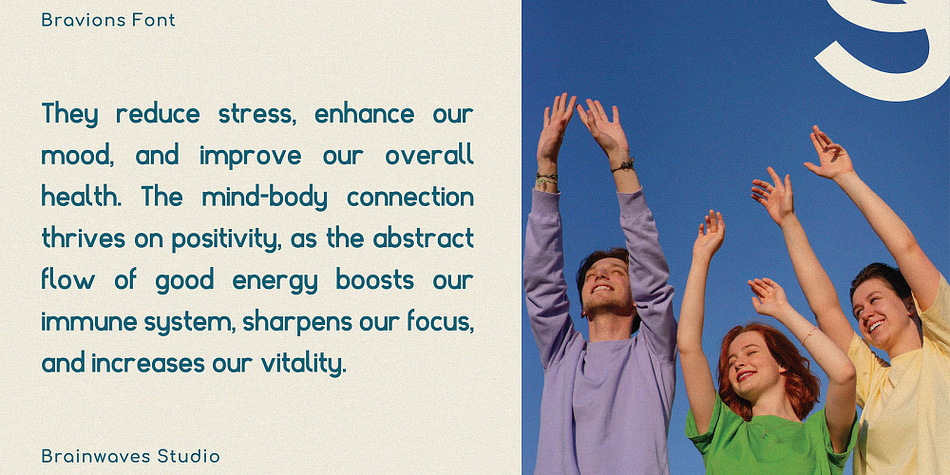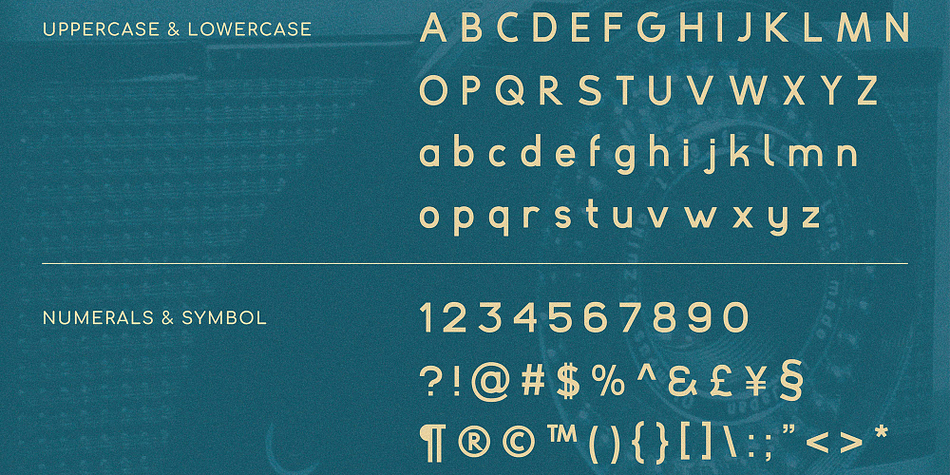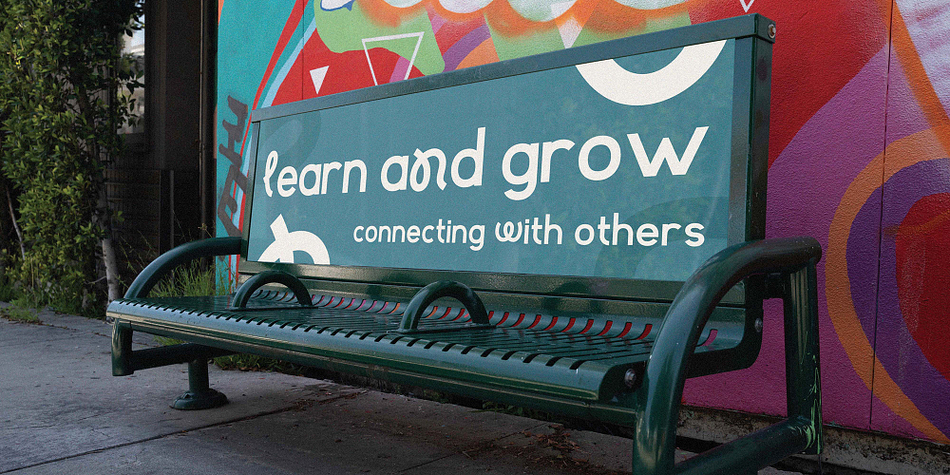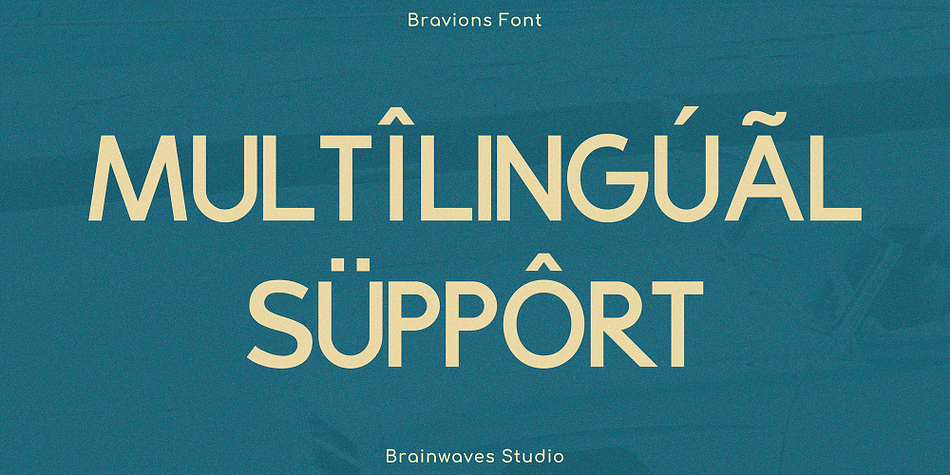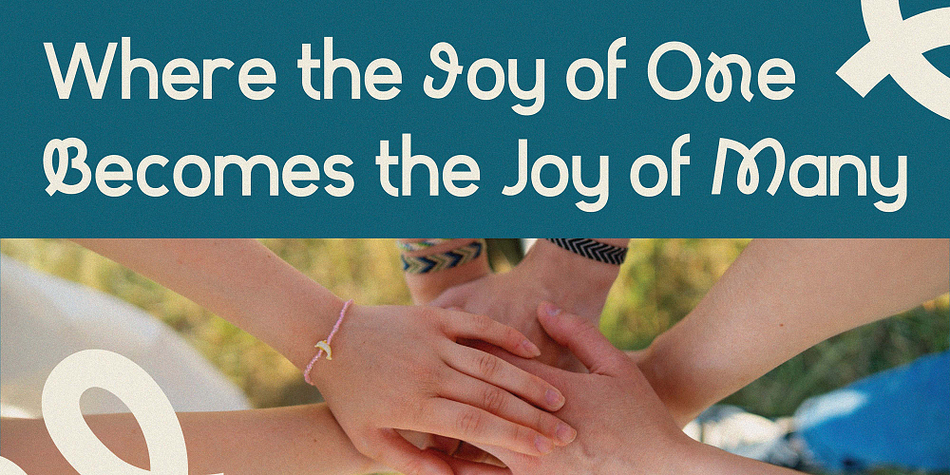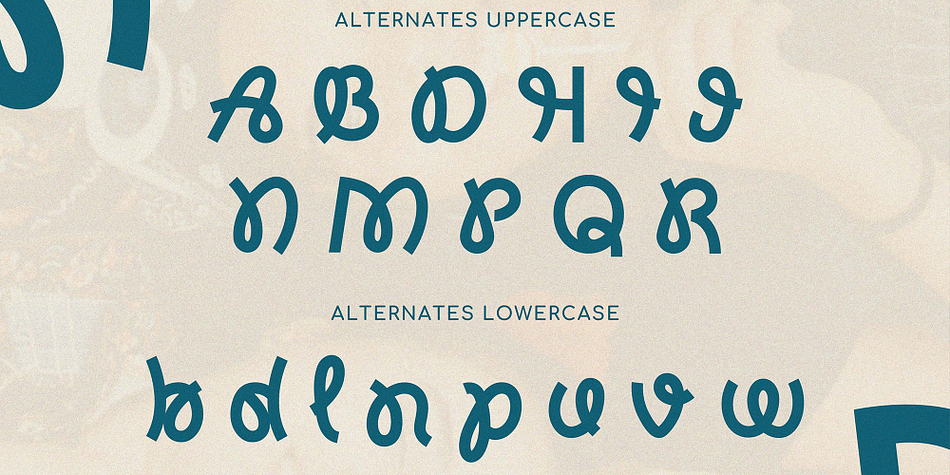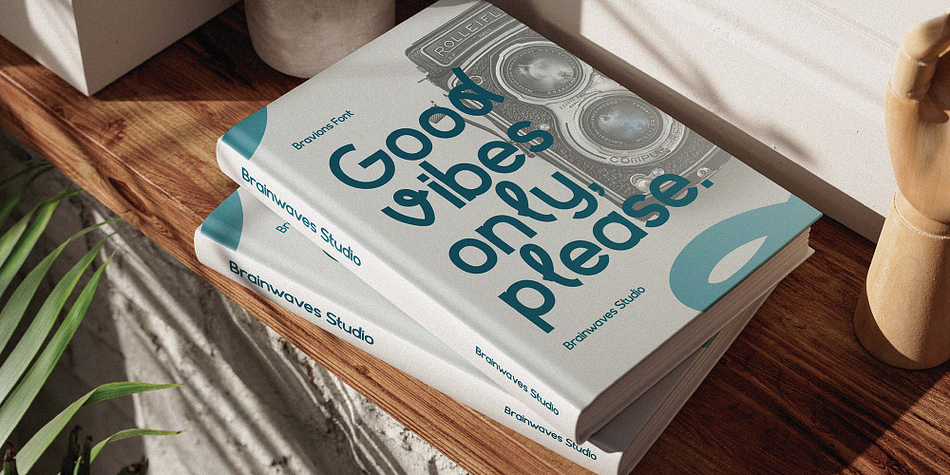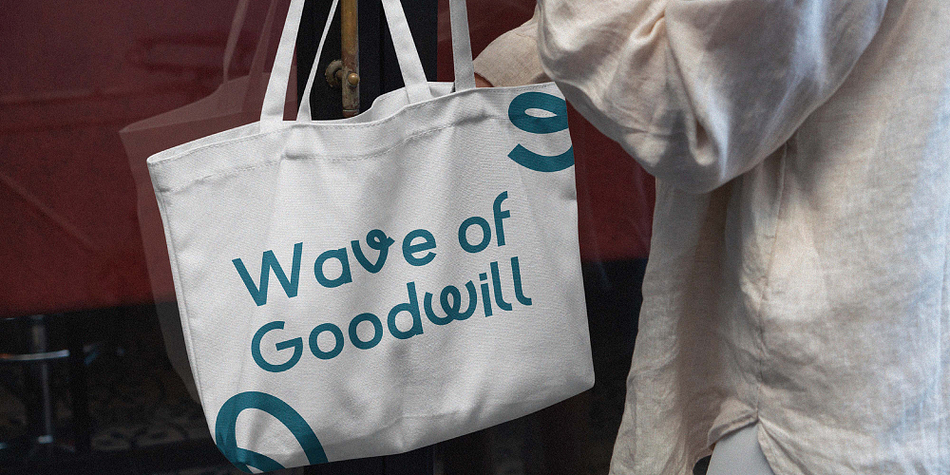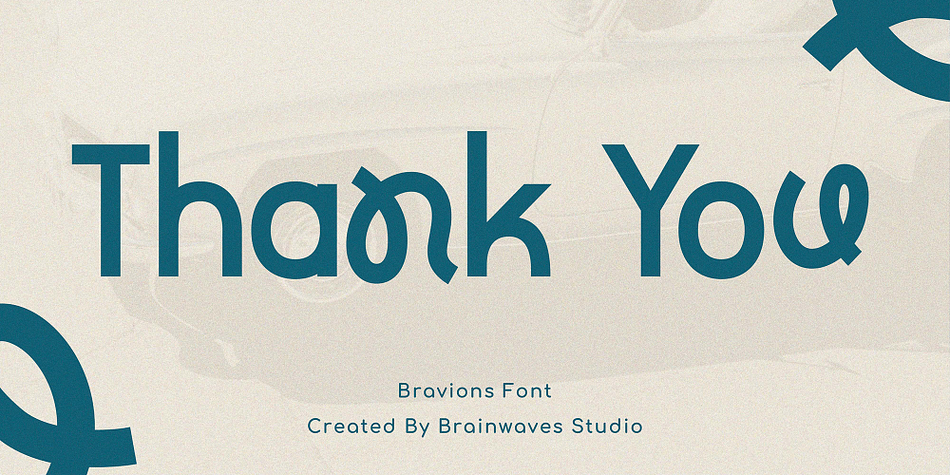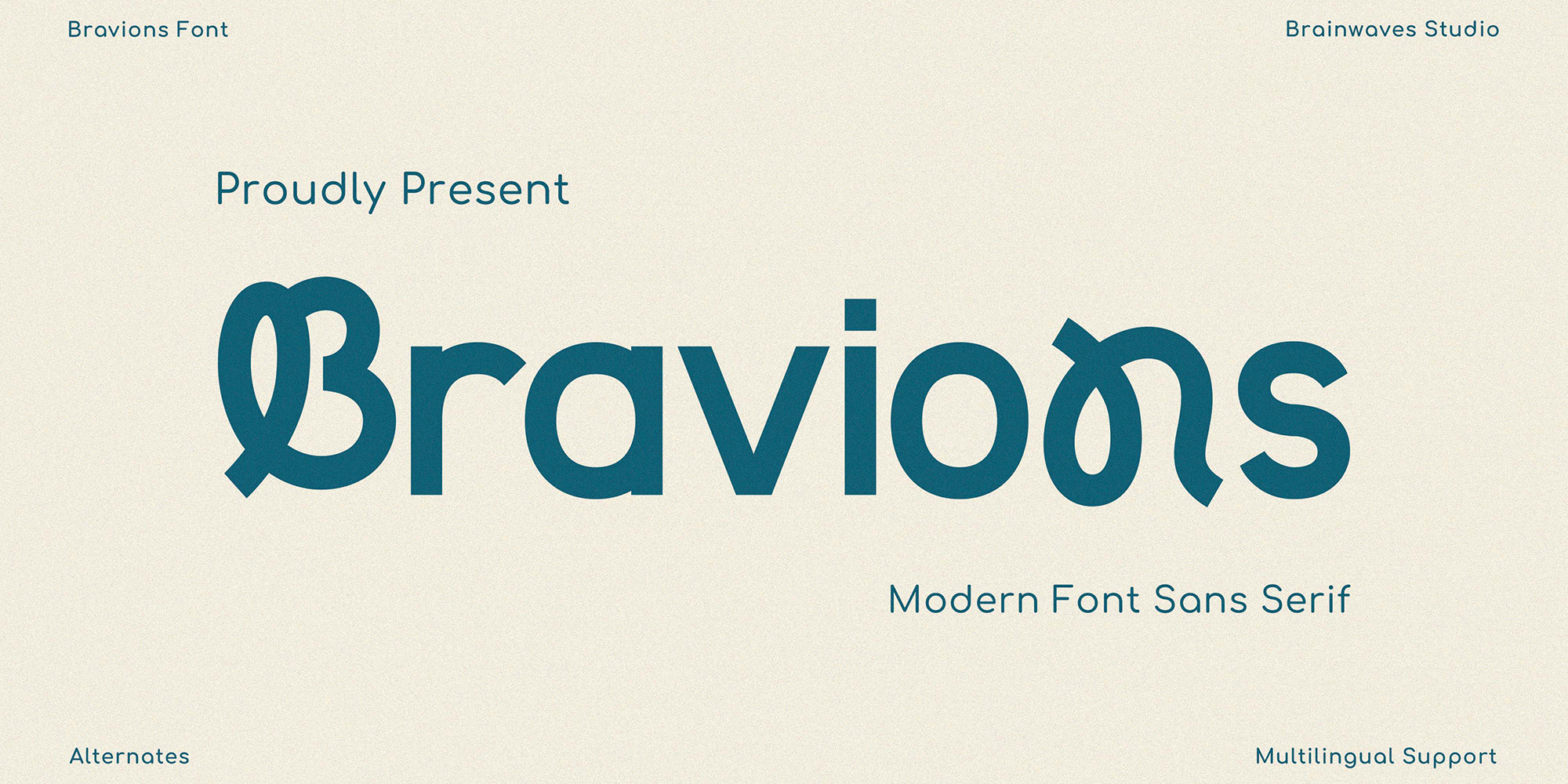
Bravions
Designed by Lucky Fitriadi, Bravions is a sans serif font family. This typeface has two styles and was published by Brainwaves Studio.
THIS IS OUR NEW FONT SANS SERIF DISPLAY BRAVIONS, BRAVIONS HAD A TASTE OF MINIMALIST FONT. THIS FONT GOOD FOR LOGOTYPE, LOGO TEXT, GRAPHIC DESIGN.
Foundry Brainwaves Studio
Designer Lucky Fitriadi